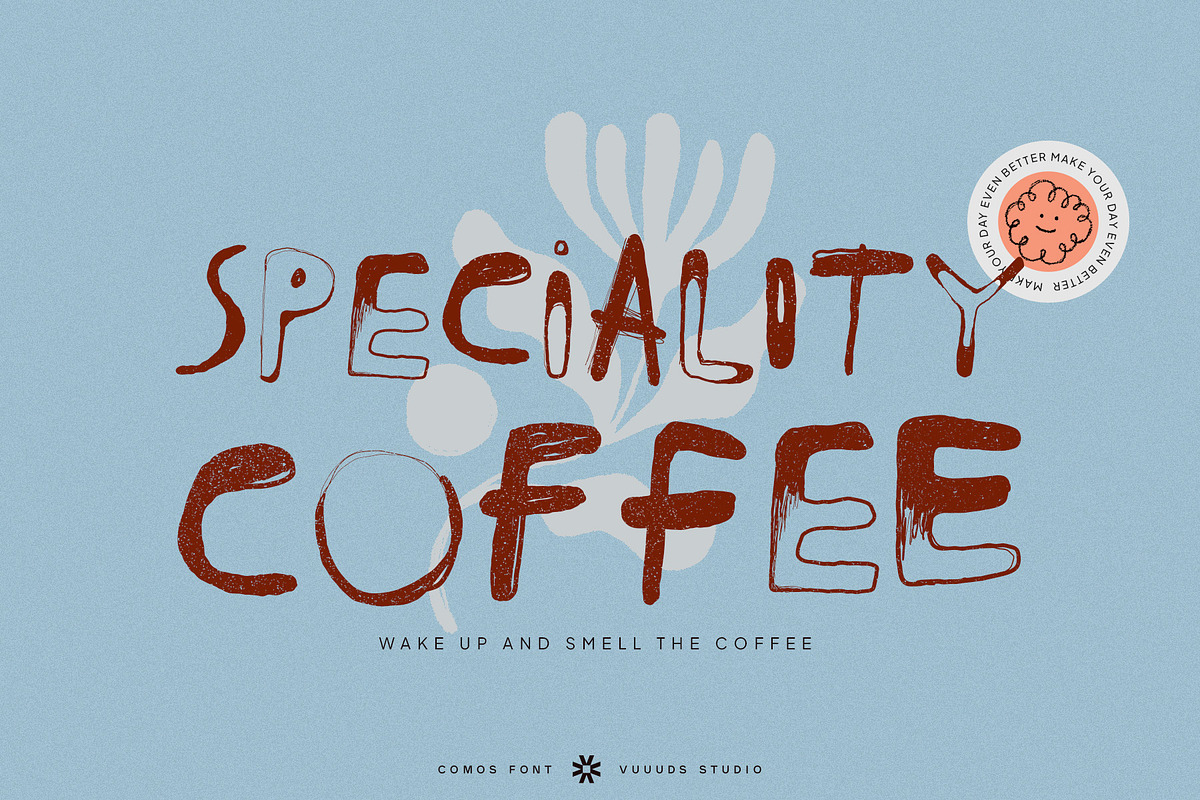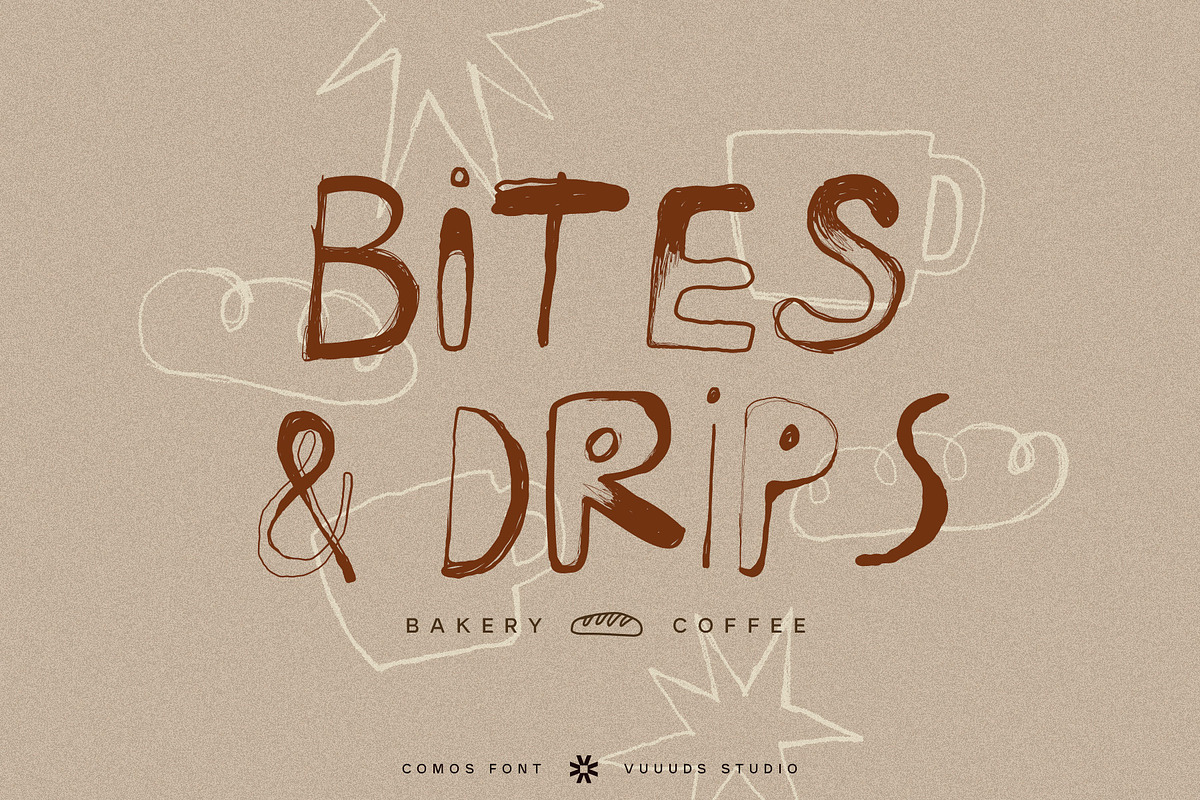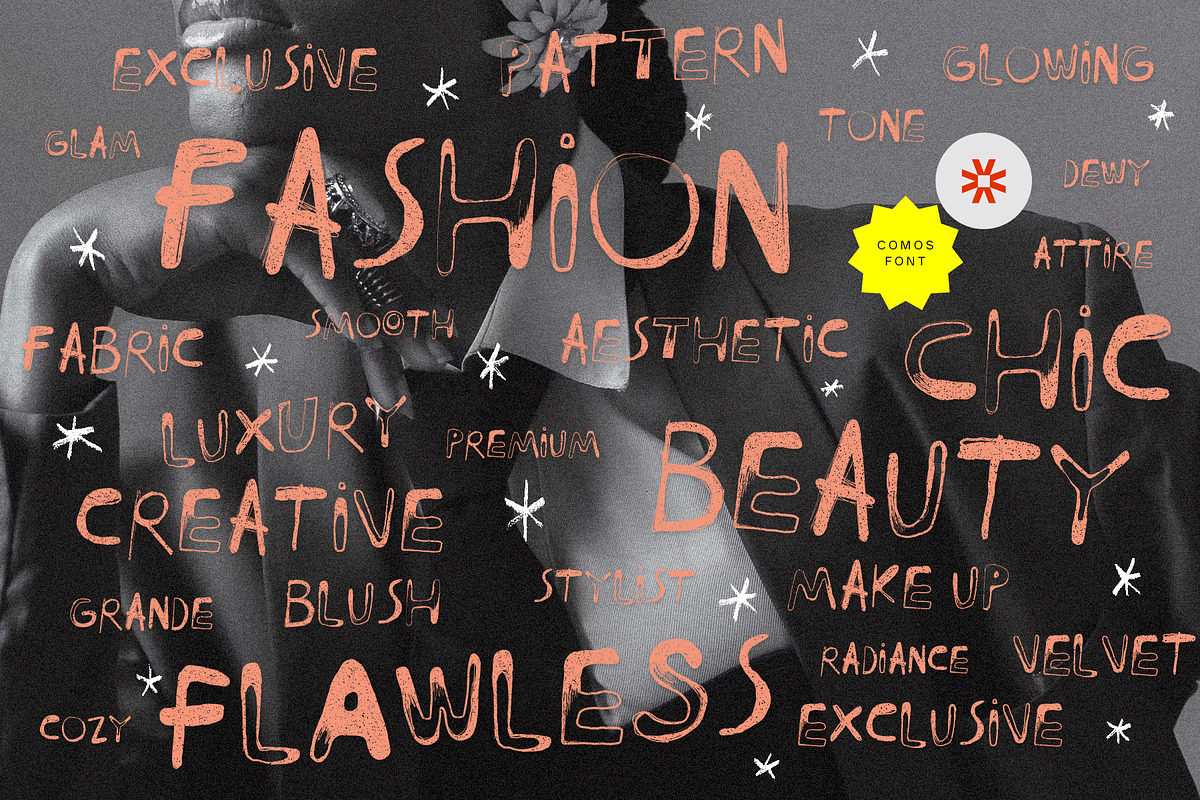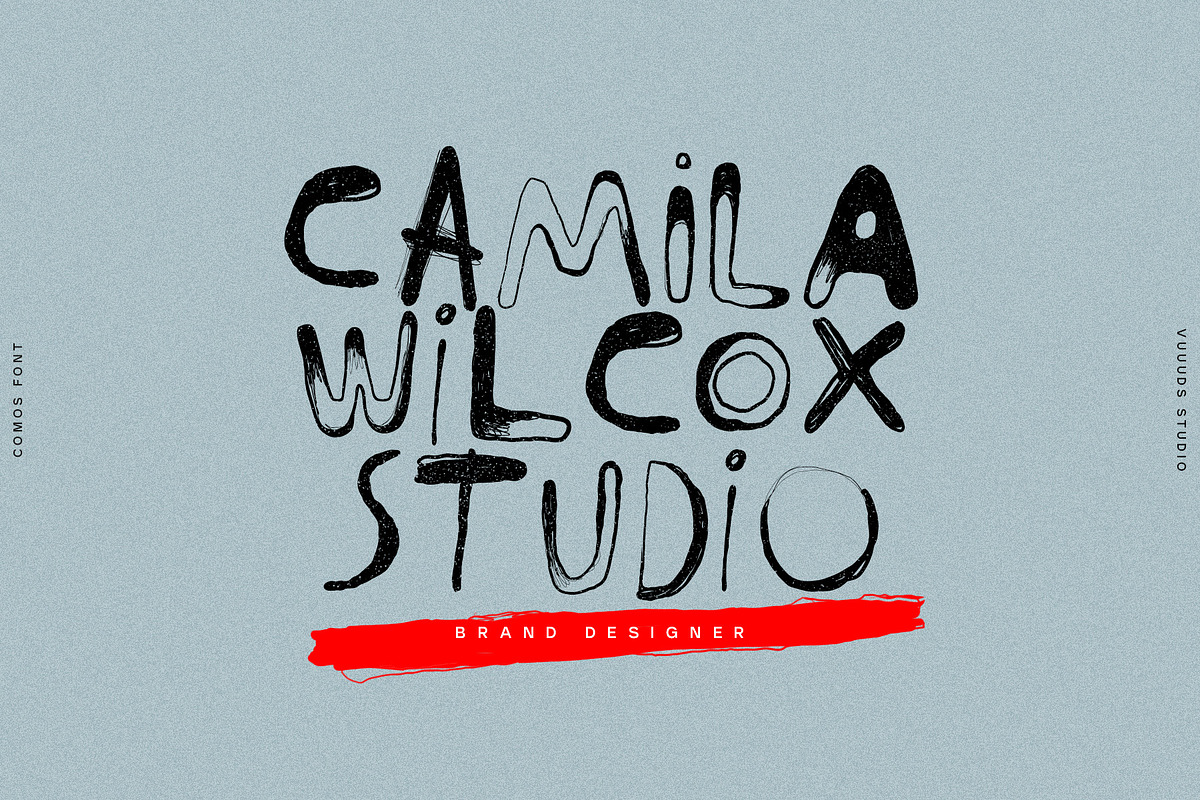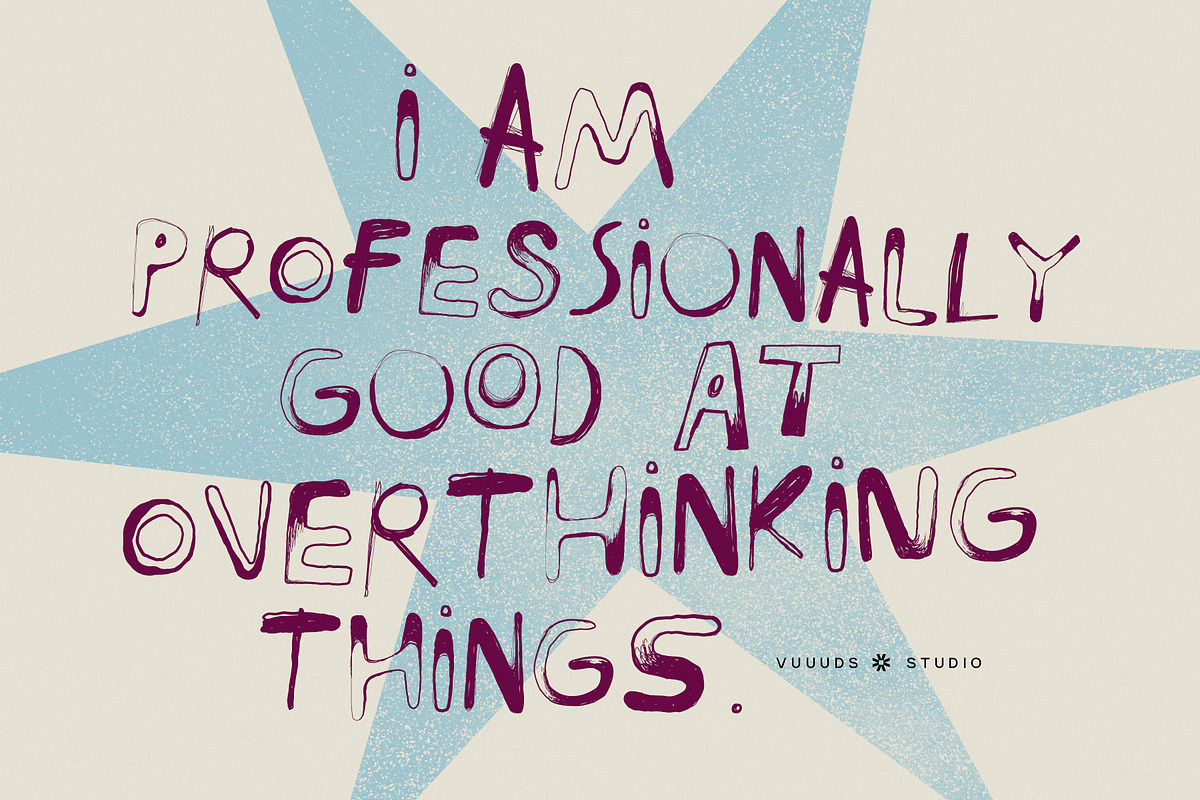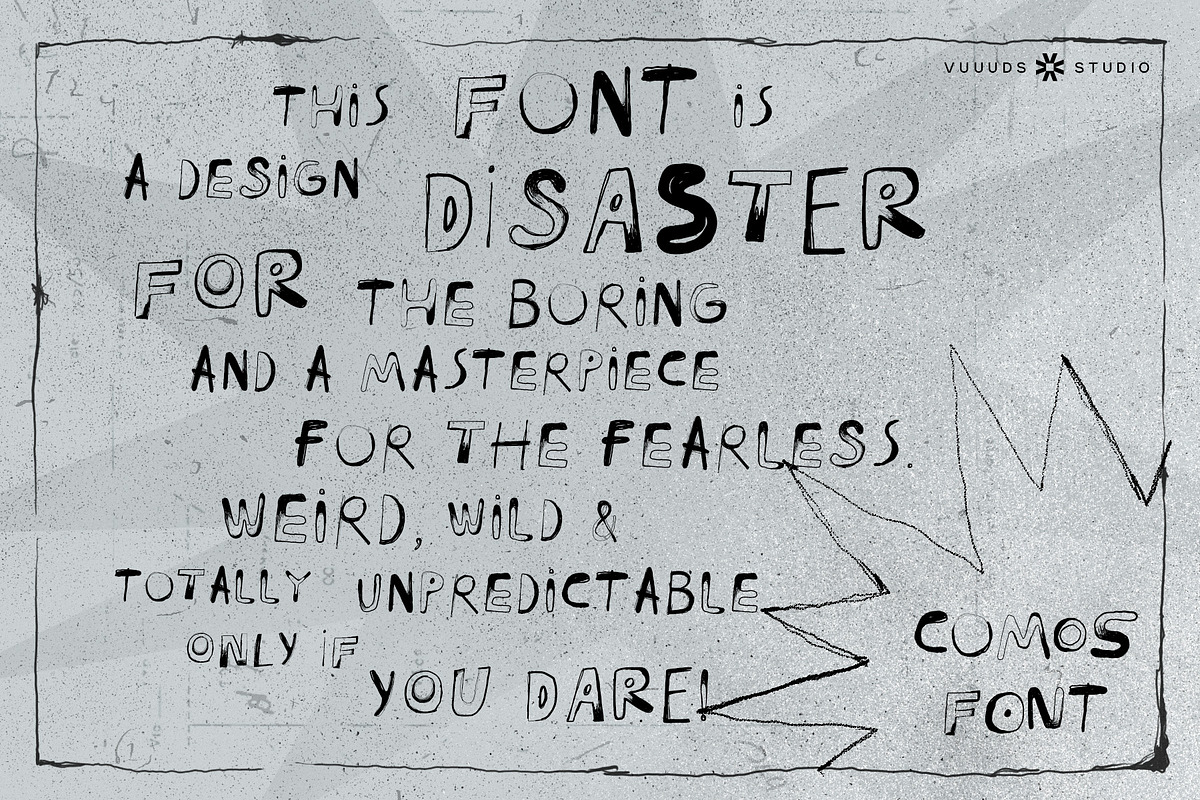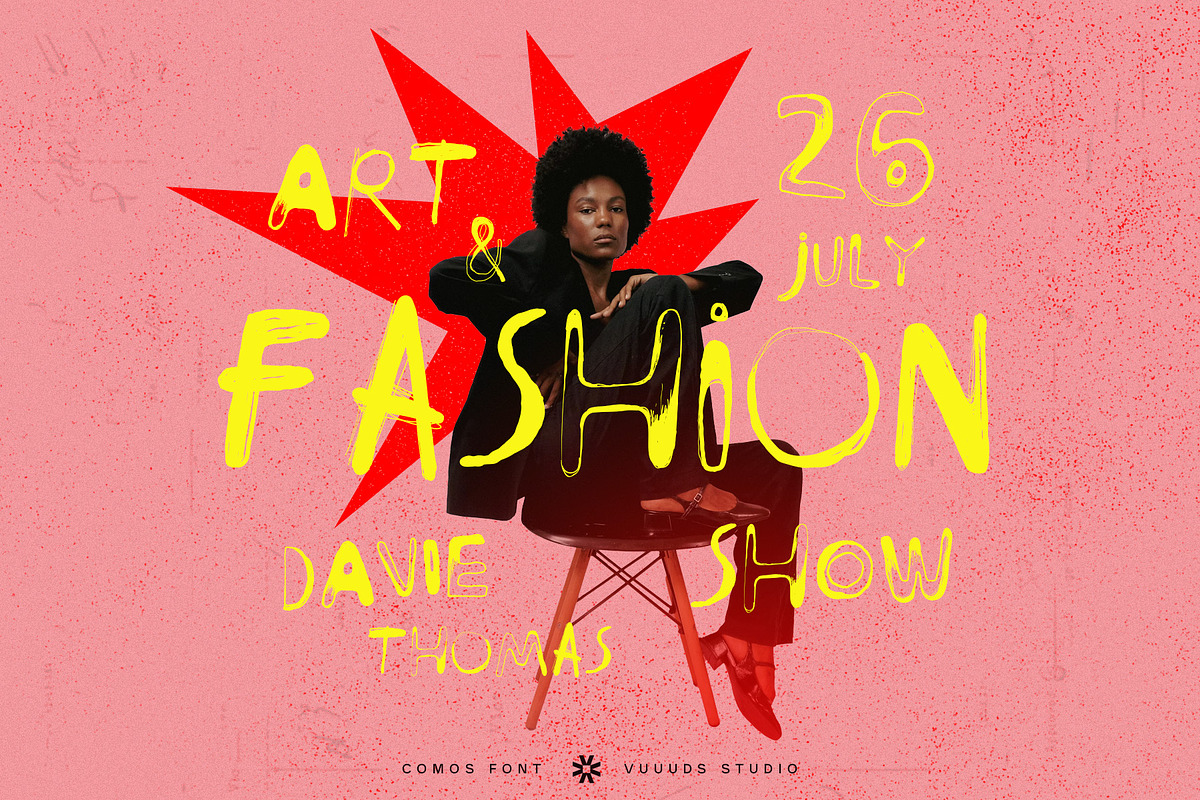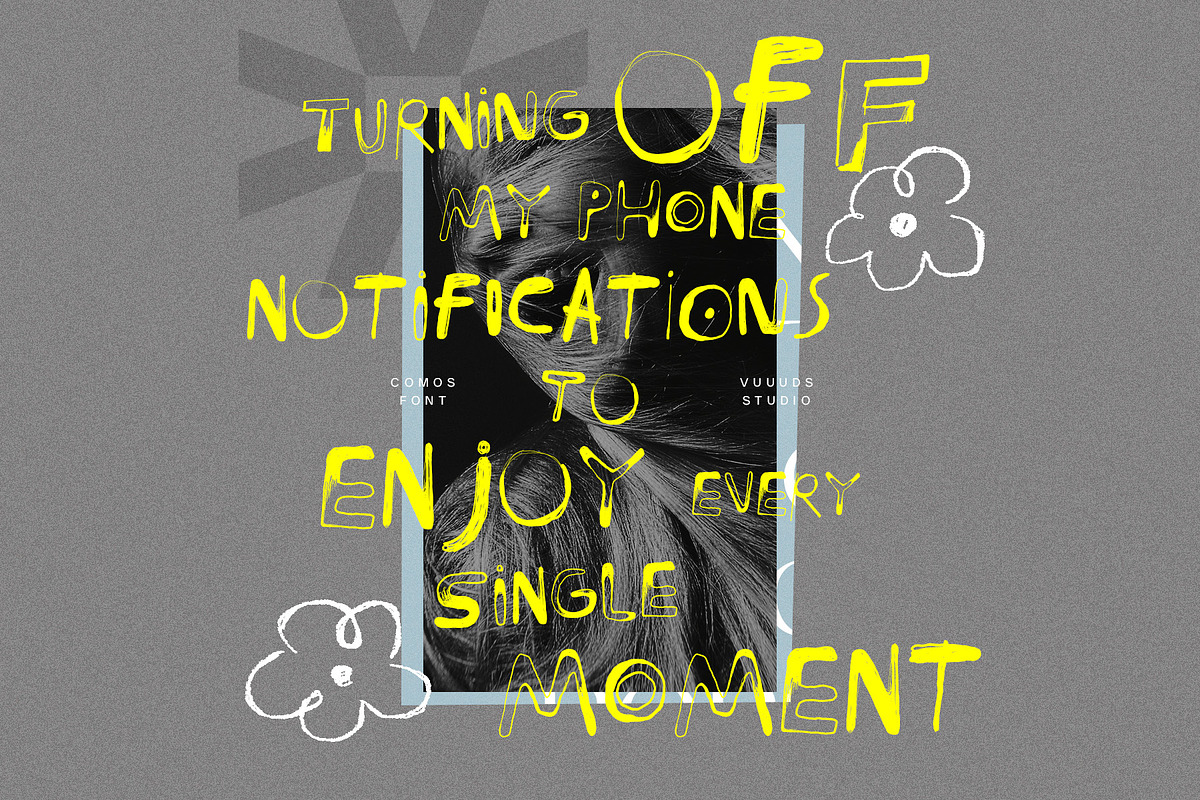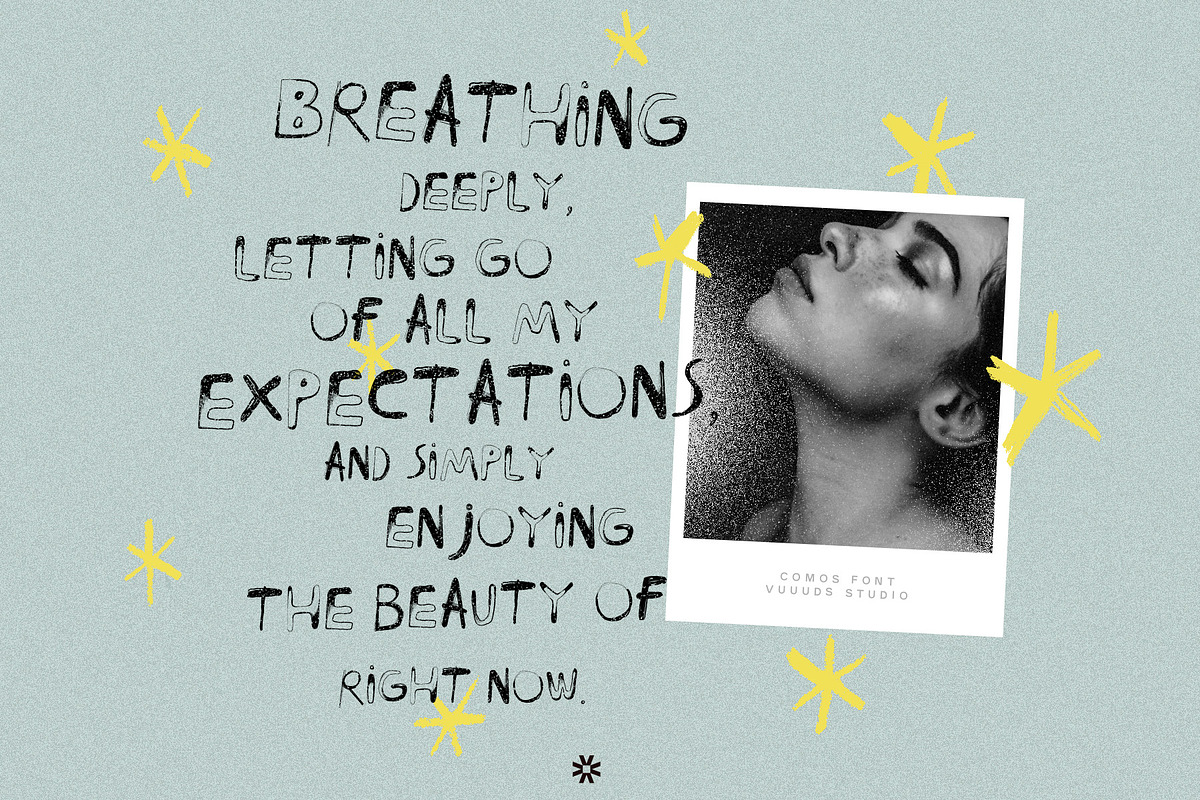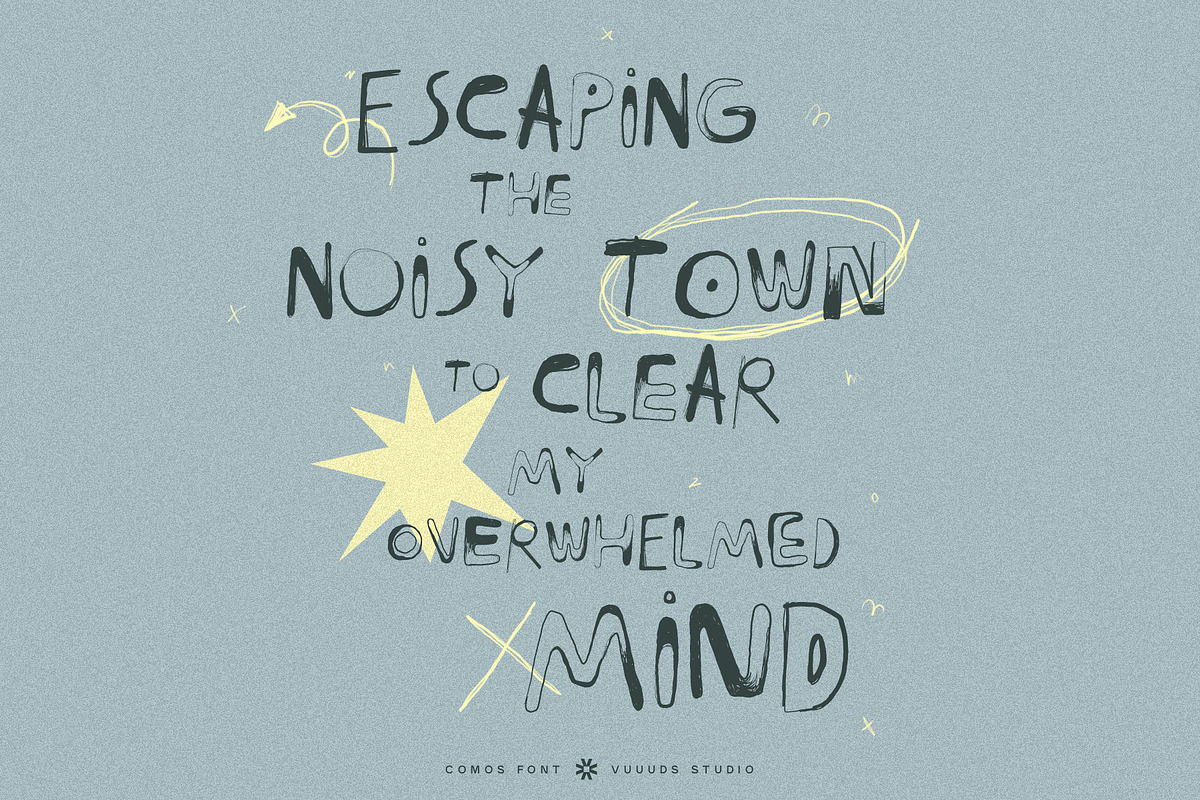
Comos
"A DESIGN DISASTER FOR THE BORING. A MASTERPIECE FOR THE FEARLESS."
WARNING: THIS IS NOT YOUR AVERAGE FONT.
Comos Font was not created to look neat, polite, or balanced. It was born to break rules, disrupt layouts, and make vanilla designs cry. With its wild shapes, unpredictable rhythm, and rough, rebellious edge, Comos is deliberately weird—and completely unapologetic about it.
If you are looking for clean, traditional, or "safe" typography, please leave this page right now.